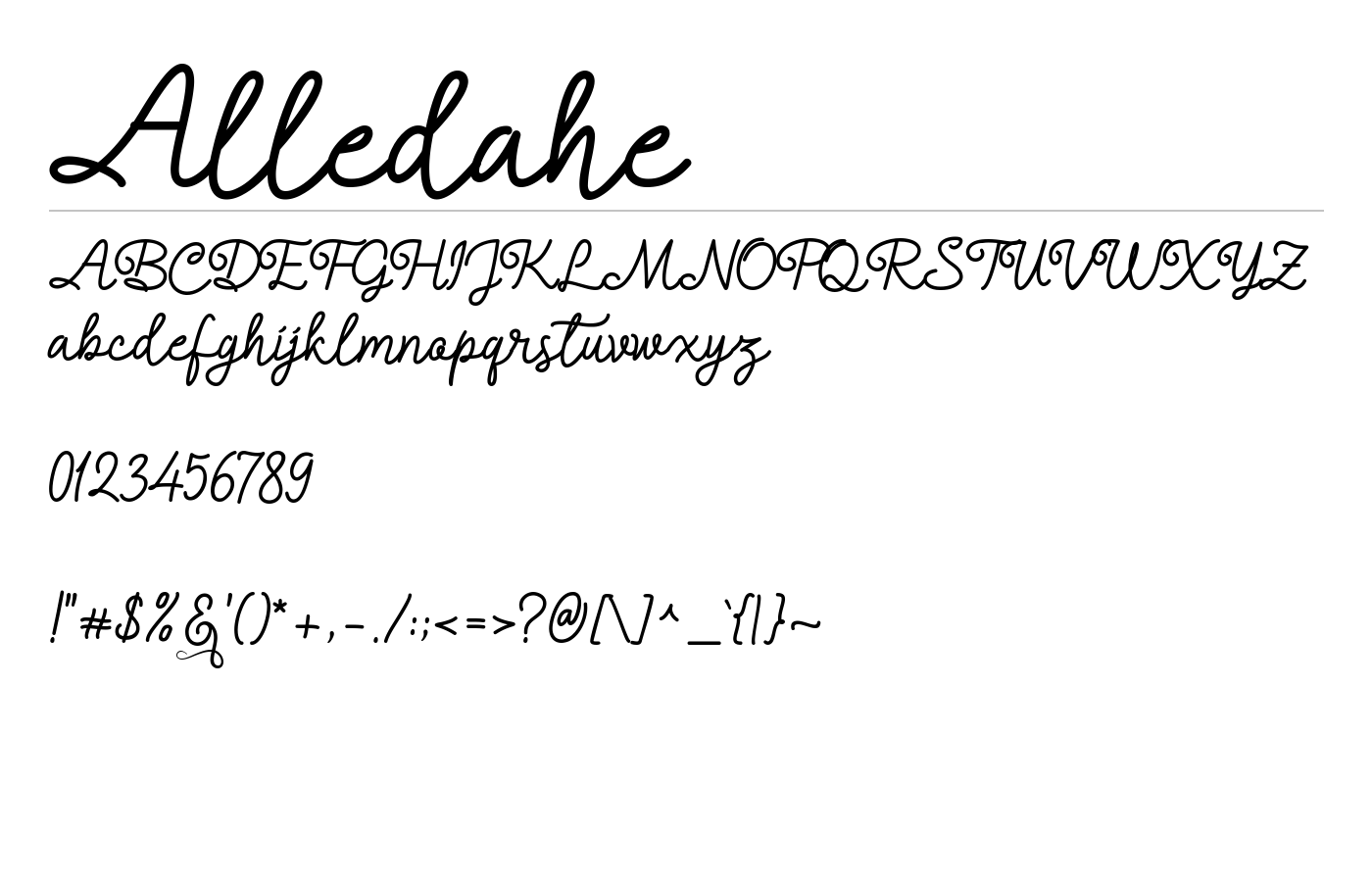
Alledahe is a graceful script font characterized by its smooth, flowing lines and delicate strokes that create an elegant and personal handwritten feel. Its upright, moderately narrow letterforms with subtle flourishes make it perfect for adding a charming, refined touch to invitations, branding, and decorative text. This font works beautifully in designs that aim to convey warmth, sophistication, and a handcrafted aesthetic.
Alledahe Font